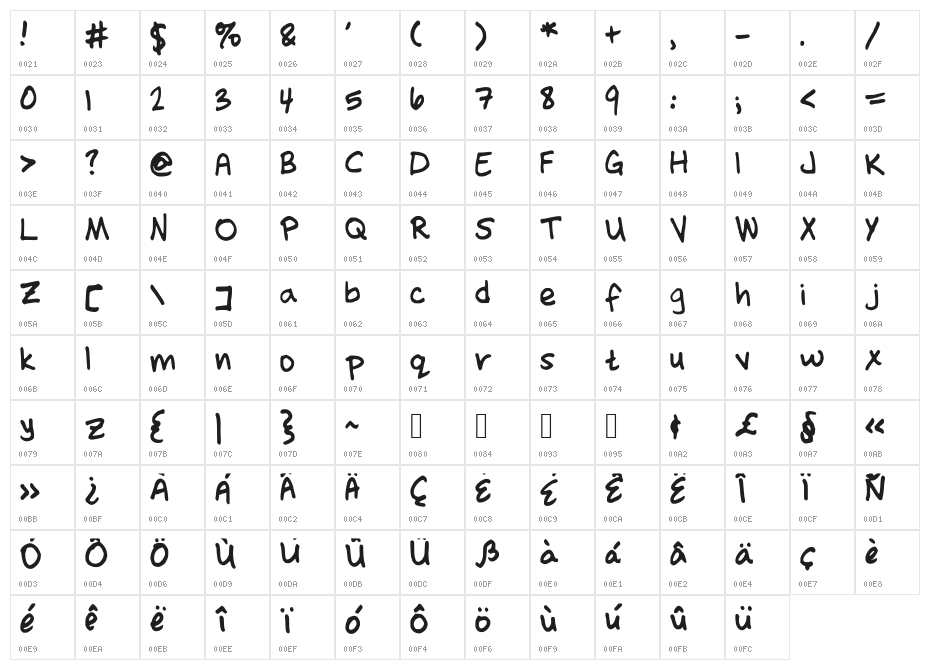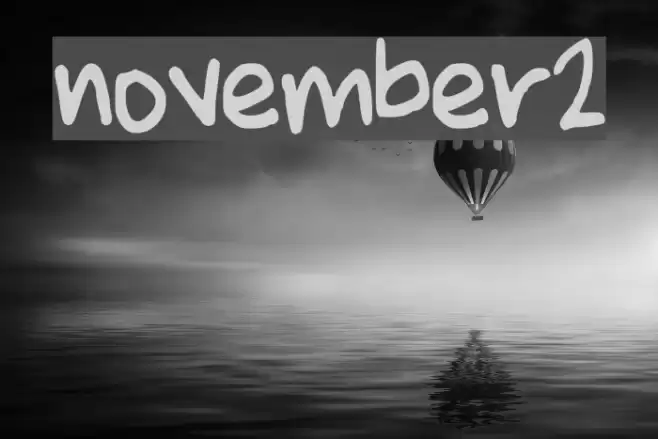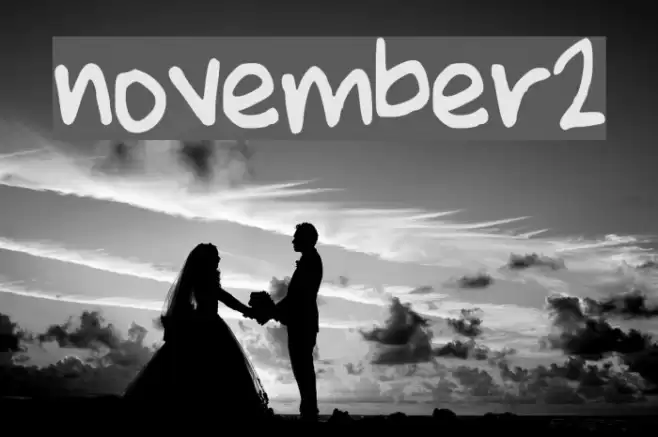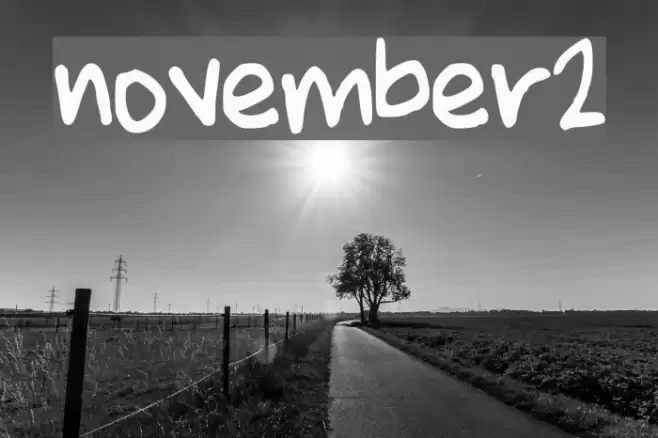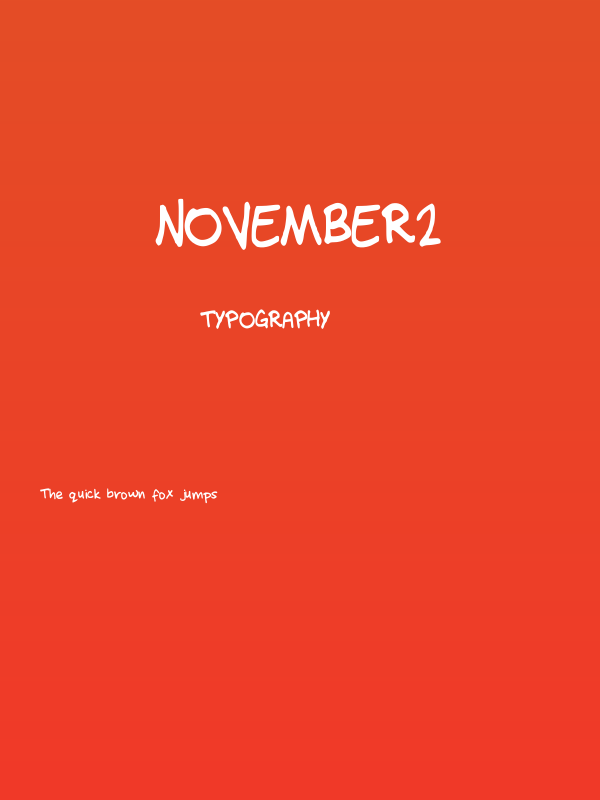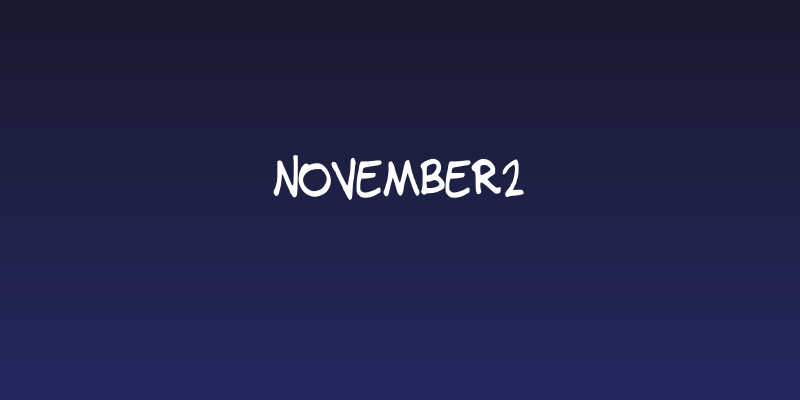
november2 Font
november2 Description
This font features a playful and informal handwritten style, characterized by its bold and slightly irregular strokes. The letters have a casual, friendly appearance, with a slight slant that adds to the dynamic feel. The uppercase and lowercase letters are well-balanced, maintaining a consistent flow throughout. Numbers and special characters are crafted with the same playful touch, making them easily readable while retaining the font's unique personality. The overall design is approachable and versatile, suitable for a variety of creative projects.
| Proposed Projects | Ideal for greeting cards, children's books, casual branding, and social media graphics. |